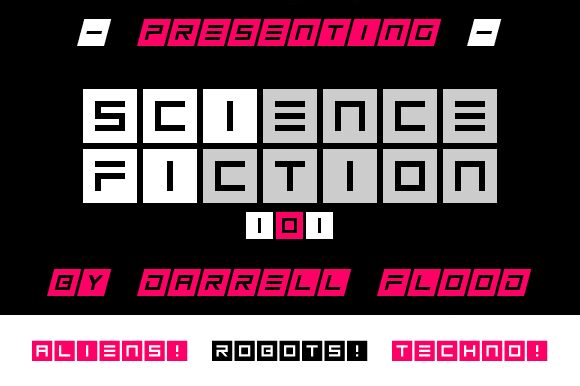
Science Fiction 101 Italic, designed by Hawtpixel, is a futuristic and techno-inspired display font. With its semi-light weight and expanded width, this font effortlessly captures the essence of negative space to create a visually striking impact
This font is perfect for projects that seek to convey a sense of innovation and technological advancement, such as sci-fi book covers, gaming titles, futuristic websites, or even tech-focused presentations.
Let Science Fiction 101 Italic take your designs to the next level with its captivating and otherworldly aesthetic.